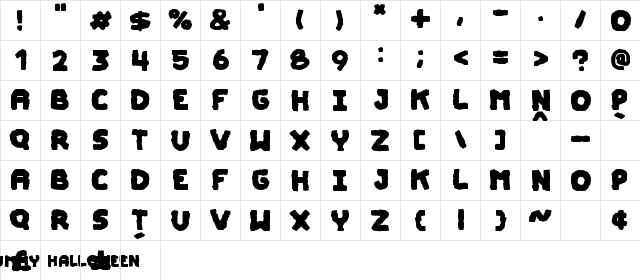
Mummy Halloween Bold
Design Context for Mummy Halloween Typeface
Mummy Halloween is a composed and adaptable typeface that performs quietly and consistently across a wide range of design contexts. The heavy weight commands attention and anchors typographic hierarchies.